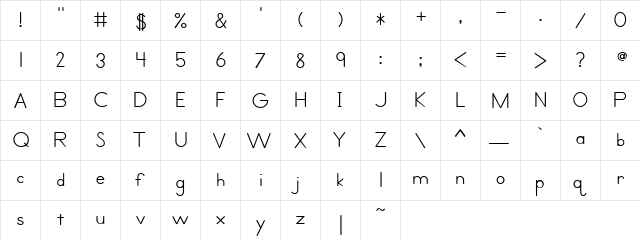
Primer Print Medium
Design Context for Primer Print Typeface
Primer Print offers clean, dependable letterforms without strong stylistic allegiance, making it a practical choice for designers who need flexibility.